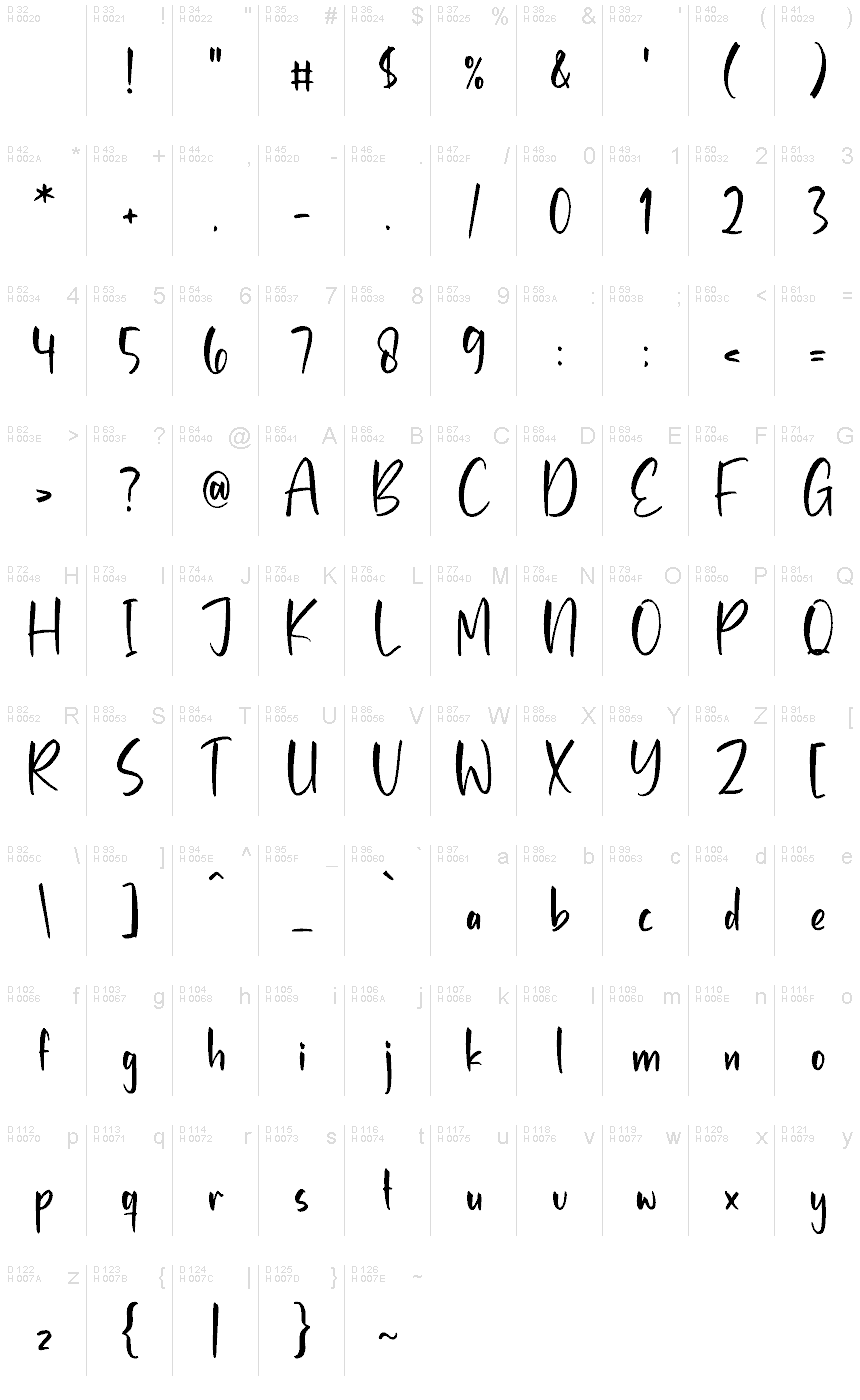
Brodslice
Brodslice font by Perspectype Studio - Letterena.com has a spunky personality with a smooth handwritten style. The letter height varies, but the uppercase characters have the perfect balance and core weight. Note that size variations also exist between lowercase letters which add to its playful voice.
All sports enthusiasts, teams, and their fans will enjoy exploiting this free handwritten font for jerseys, social media visuals, flyers, spirit flags… Graphic designers can also pick it up for ebooks/covers titles and posters as well as product labels/packagings. Printed invitations/cards, signatures/logos, and other platforms are equally enjoyable options.